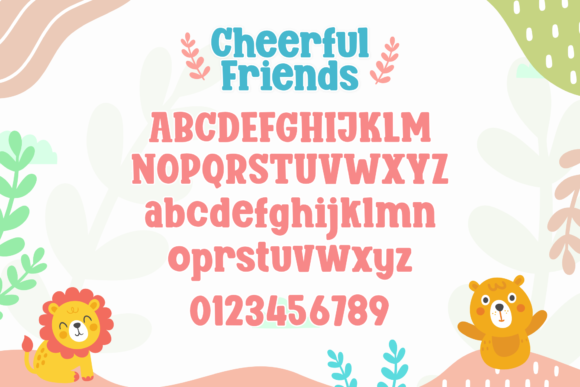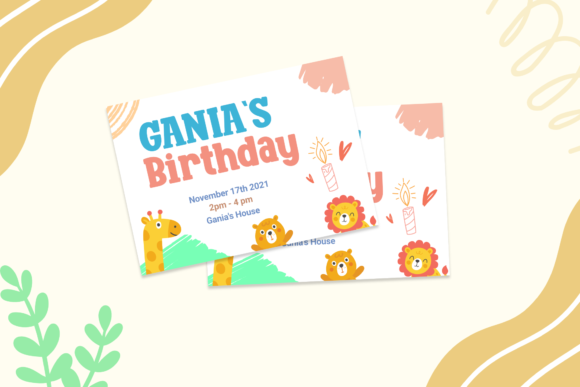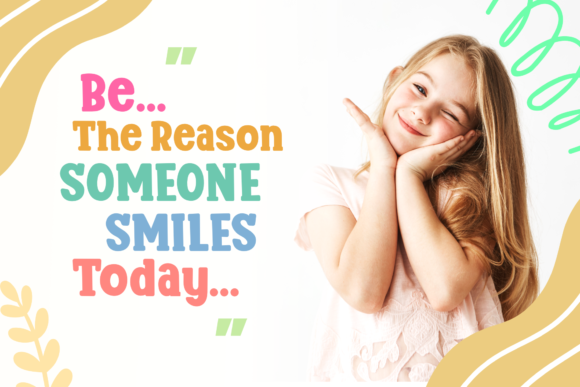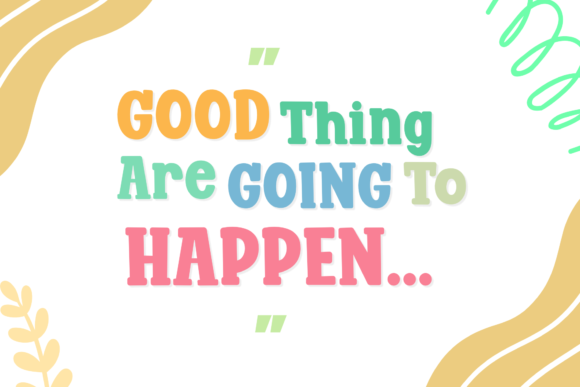
Introducing Cheerful Friends Font: The Ultimate Display Font for Fun and Playful Designs
Are you looking for a font that can add a touch of fun and playfulness to your designs? Look no further than Cheerful Friends Font! This delightful and charming display font is perfect for children’s projects, as well as any design idea that needs a cartoonish vibe. In this article, we’ll take a closer look at Cheerful Friends Font, its features, and how you can use it to take your designs to the next level.
What is Cheerful Friends Font?
Cheerful Friends Font is a display font that is designed to radiate fun and playfulness. Its charming and whimsical design makes it perfect for use in children’s books, educational materials, posters, and any other design project that requires a lighthearted and cartoonish feel. The font is carefully crafted to bring a smile to the reader’s face, making it an excellent choice for designers and crafters who want to create engaging and entertaining content.
Key Features of Cheerful Friends Font
So, what makes Cheerful Friends Font so special? Here are some of its key features:
- Delightful and charming design: Cheerful Friends Font has a unique and captivating design that is sure to grab the attention of your audience.
- Perfect for children’s projects: The font’s playful and whimsical design makes it an excellent choice for children’s books, educational materials, and other projects aimed at kids.
- Cartoonish vibe: Cheerful Friends Font has a distinctly cartoonish feel that is perfect for designs that require a lighthearted and humorous touch.
- Easily readable: Despite its playful design, Cheerful Friends Font is easily readable, making it perfect for use in a variety of design projects.
How to Use Cheerful Friends Font in Your Designs
Cheerful Friends Font is a versatile font that can be used in a variety of design projects. Here are some ideas to get you started:
- Children’s books and educational materials: Cheerful Friends Font is perfect for use in children’s books, educational materials, and other projects aimed at kids.
- Posters and flyers: Add a playful touch to your posters and flyers with Cheerful Friends Font.
- Social media graphics: Use Cheerful Friends Font to create engaging and entertaining social media graphics.
- Crafting and DIY projects: Cheerful Friends Font is perfect for use in crafting and DIY projects, such as making cards, gift tags, and other handmade items.
Tips for Getting the Most Out of Cheerful Friends Font
Here are some tips for getting the most out of Cheerful Friends Font:
- Use it sparingly: While Cheerful Friends Font is a fun and playful font, it can be overwhelming if used excessively. Use it sparingly to add a touch of whimsy to your designs.
- Experiment with colors and textures: Cheerful Friends Font looks great in a variety of colors and textures. Experiment with different combinations to find the one that works best for your design.
- Pair it with other fonts: Cheerful Friends Font pairs well with other fonts, such as sans-serif fonts and script fonts. Experiment with different pairings to find the one that works best for your design.
Cheerful Friends Font is a delightful and charming display font that is perfect for designers and crafters who want to add a touch of fun and playfulness to their designs. With its unique and captivating design, Cheerful Friends Font is sure to grab the attention of your audience and bring a smile to their face. Whether you’re working on a children’s project, a poster, or a social media graphic, Cheerful Friends Font is a great choice. So why not give it a try and see how it can take your designs to the next level?